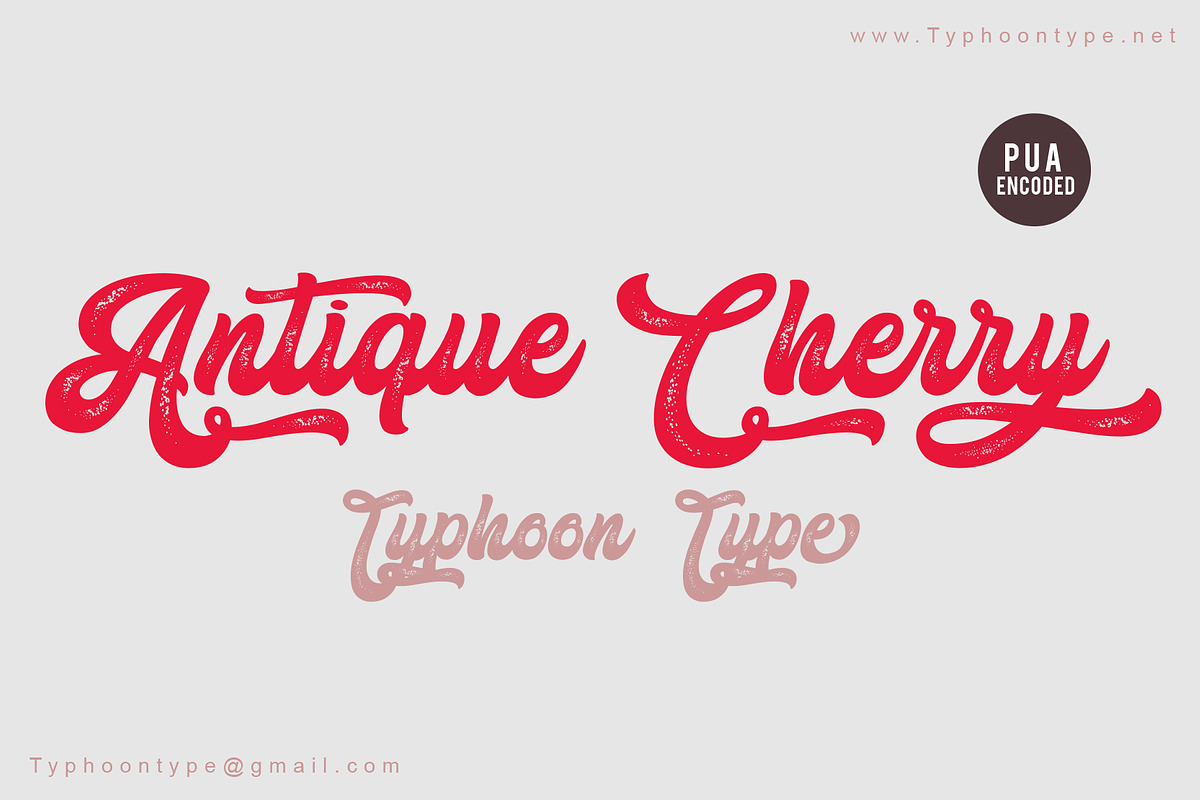
Antique Cherry font
Antique Cherry This Font perfect for logos, name tag, advertising, product packaging, clothing, social media & greeting cards.
Why Antique Cherry font is worth a look
Antique Cherry font by TyphoonStudio fits naturally into Branding, posters, packaging, typography.